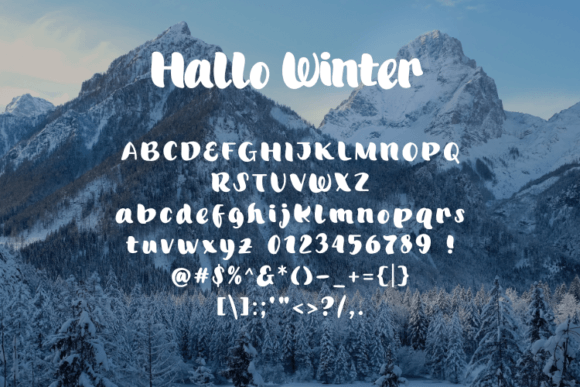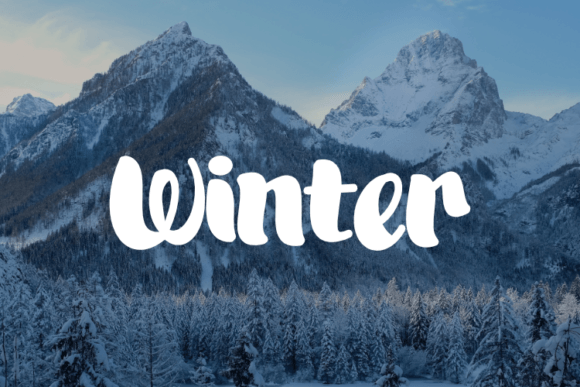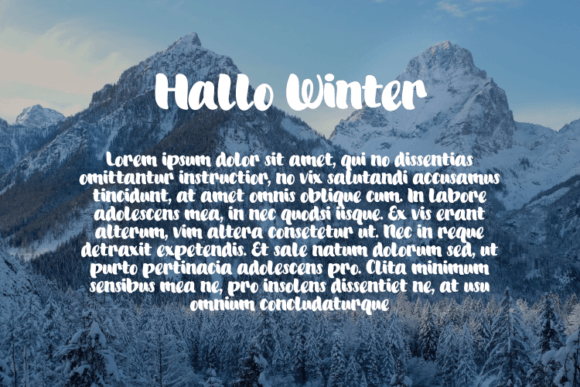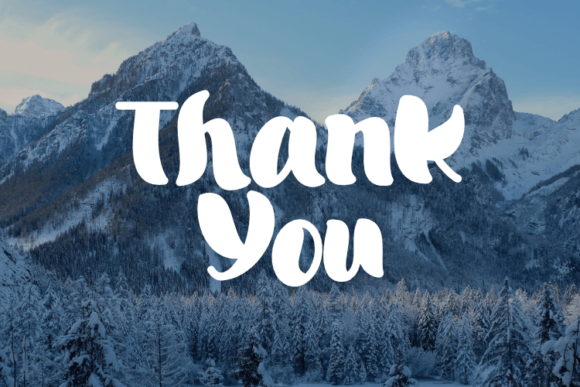
Hallo Winter Font: Cozy Up to the Magic of the Season
As the frosty mornings set in and the world outside transforms into a winter wonderland, it’s the perfect time to infuse your designs with a sense of warmth and coziness. Introducing the Hallo Winter font, a delightful typeface designed to capture the essence of the season and bring a touch of magic to your creative projects.
The Perfect Blend of Warmth and Whimsy
Hallo Winter is more than just a font – it’s an experience. With its unique blend of warmth and whimsy, this adaptable font is perfect for a wide range of applications, from clothing and t-shirt designs to stickers, posters, and an array of other merchandise. Whether you’re a designer, crafter, or DIY enthusiast, Hallo Winter is the perfect companion to help you create stunning designs that evoke the spirit of the season.
Seamless Integration and Versatility
With Hallo Winter, the design possibilities are endless. Use it to create:
• Cozy clothing designs, such as sweaters, hoodies, and t-shirts
• Festive holiday cards, invitations, and posters
• Delightful stickers, washi tape, and other craft supplies
• Warm and inviting social media graphics and blog posts
• Beautiful packaging and branding for your products
What Makes Hallo Winter So Special?
So, what sets Hallo Winter apart from other fonts? Here are just a few features that make it so special:
• Unique character set: Hallo Winter features a unique character set that’s designed to evoke the warmth and magic of the season.
• High-quality design: Each letter has been carefully crafted to ensure a high level of detail and precision.
• Easy to read: Despite its whimsical nature, Hallo Winter is surprisingly easy to read, making it perfect for use in a variety of contexts.
Tips for Using Hallo Winter in Your Designs
To get the most out of Hallo Winter, here are a few tips to keep in mind:
• Experiment with colors: Hallo Winter looks great in a range of colors, from rich berry tones to soft pastels.
• Mix and match: Combine Hallo Winter with other fonts and graphics to create unique and eye-catching designs.
• Play with textures: Add depth and interest to your designs by incorporating textures and patterns.
• Keep it simple: Don’t be afraid to use Hallo Winter on its own – its simplicity can be incredibly effective.